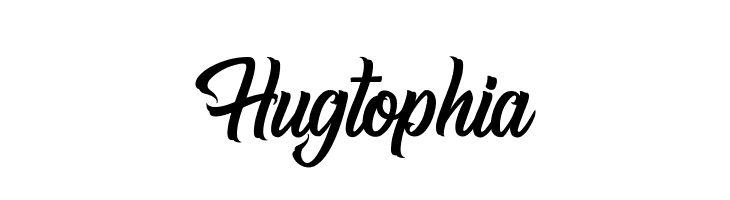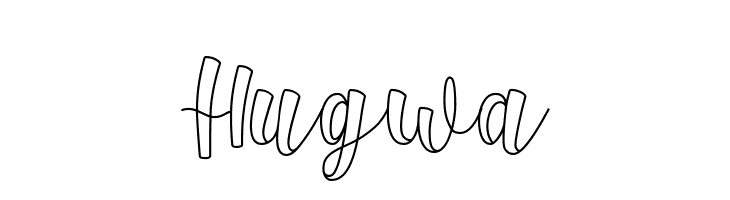
A bold, playful handwritten font with heart-shaped accents and smooth curves.
( Fonts by MaknaStudio )
A bold, distressed font with a rugged, cracked texture.
A playful, handwritten font with a casual and friendly appearance.
A bold, energetic handwritten font with expressive strokes.
( Fonts by selawetype )
A bold, playful handwritten font with a dynamic and friendly style.
( Fonts by Xerographer Fonts )
A bold, playful font with a comic-like, textured design.
A bold, hand-drawn font with a textured, doodle-like pattern.
( Fonts by Brittney Murphy Design )
A playful, bold font with rounded characters and a whimsical charm.
A playful, bold, and rounded script font with a whimsical and friendly style.